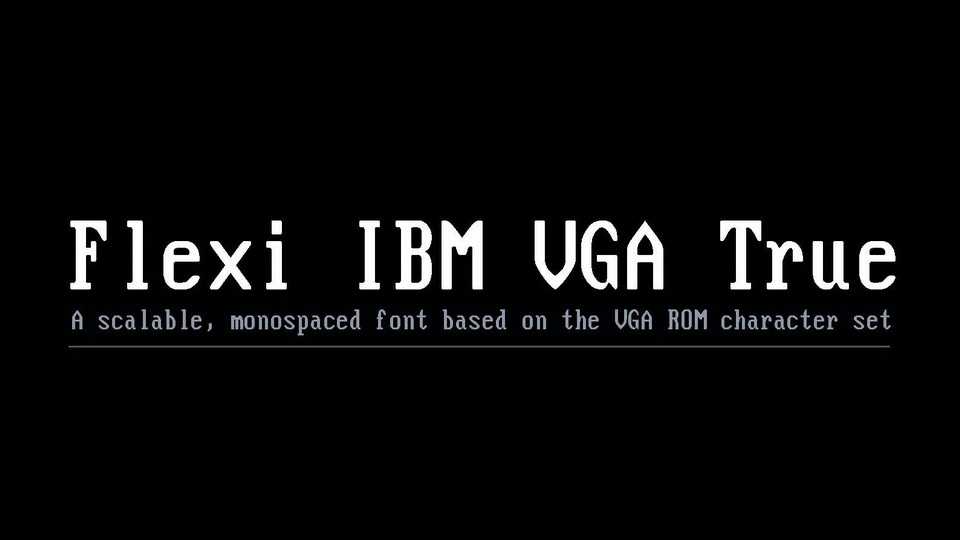
Download Flexi IBM VGA True font, a typeface based on the iconic hardware VGA character set. The font has been aspect-corrected to match the appearance of a good old 4:3 VGA monitor.
Designer: VileR